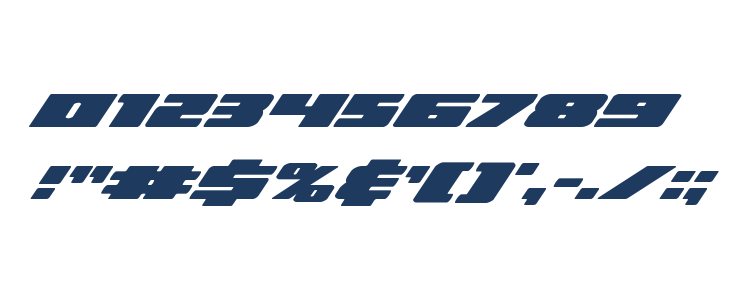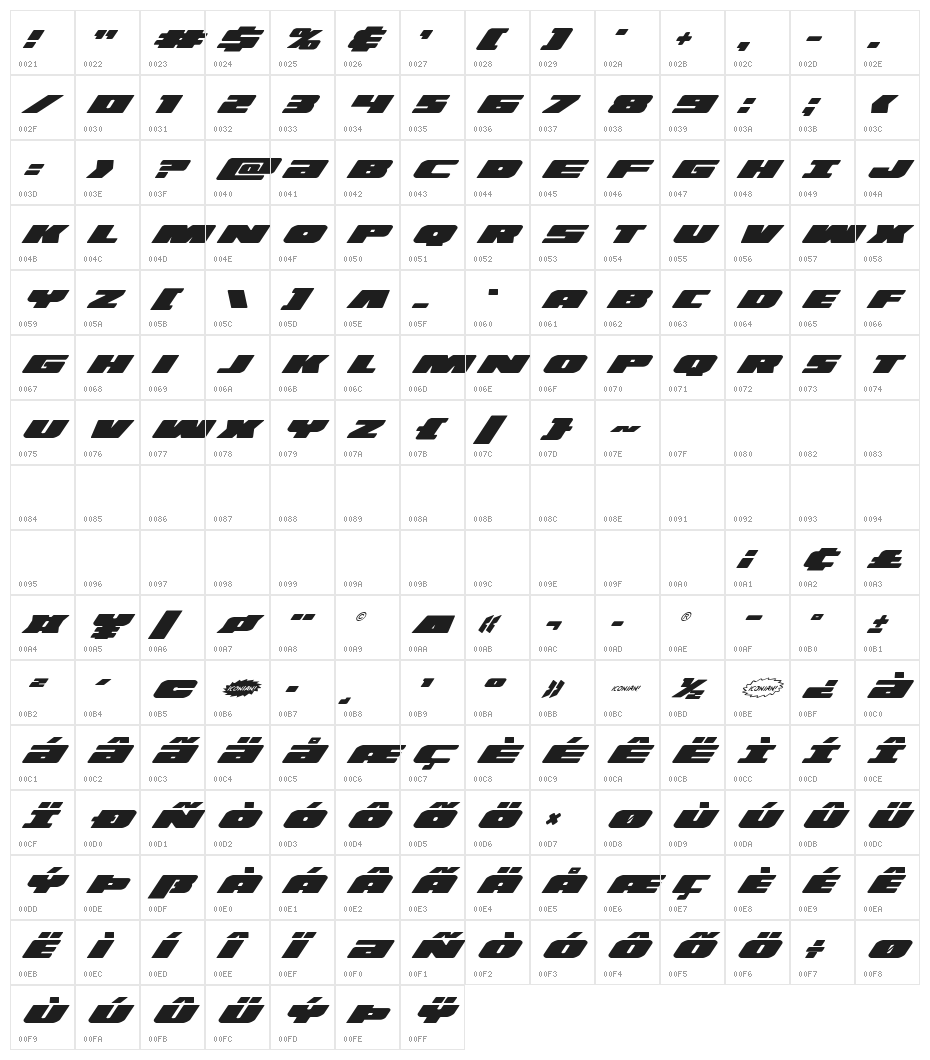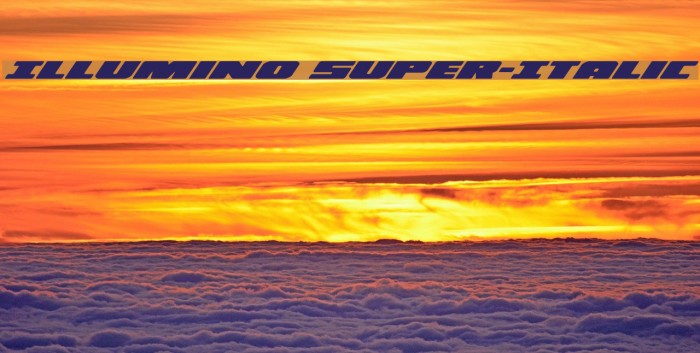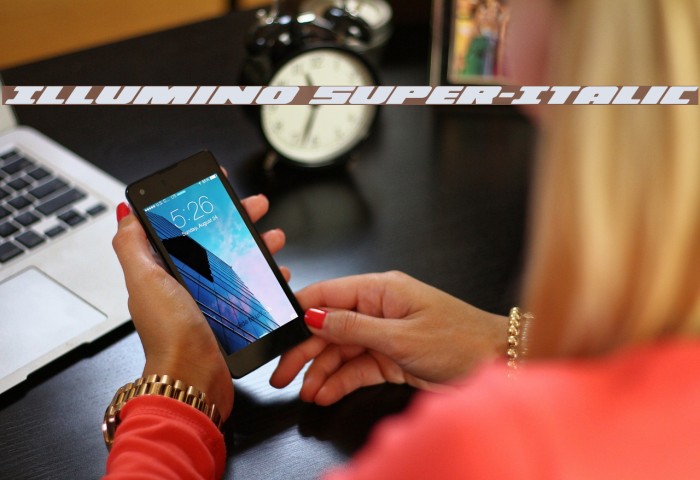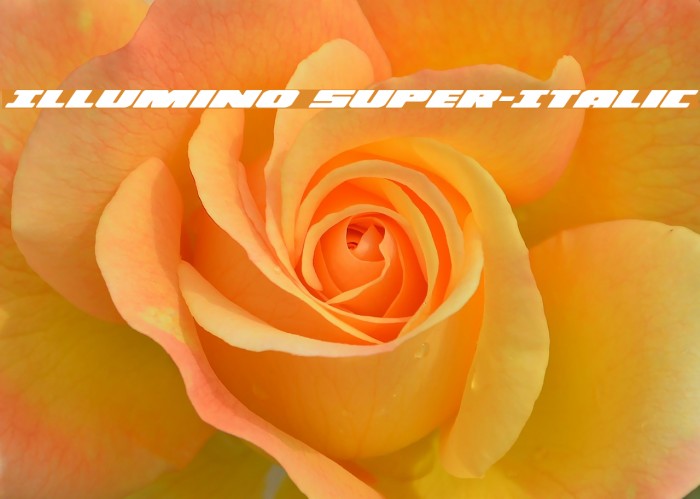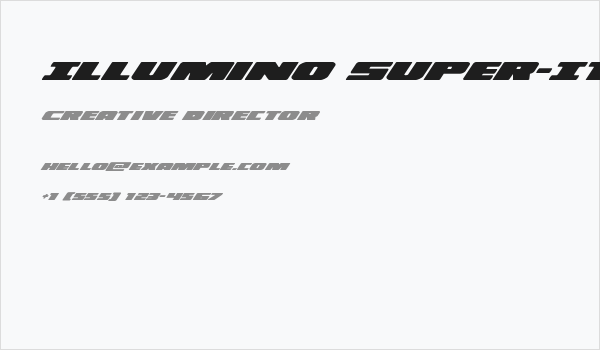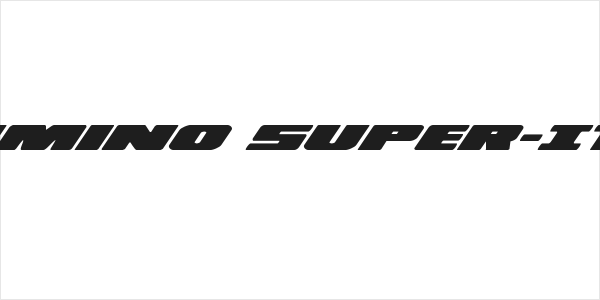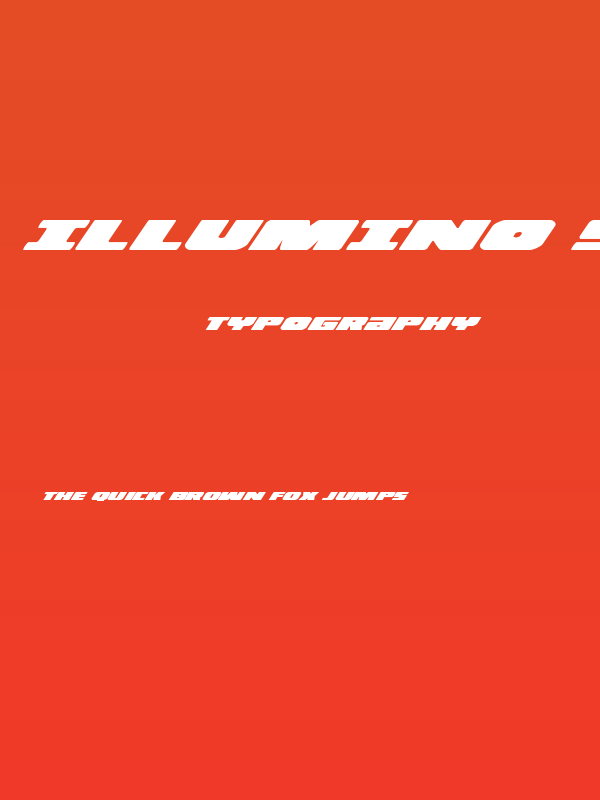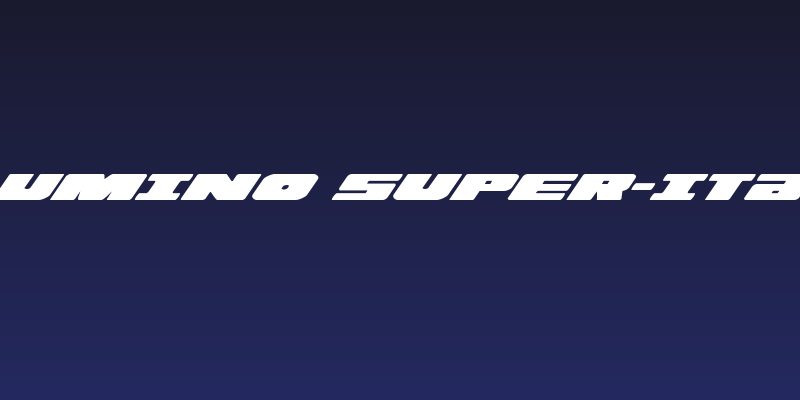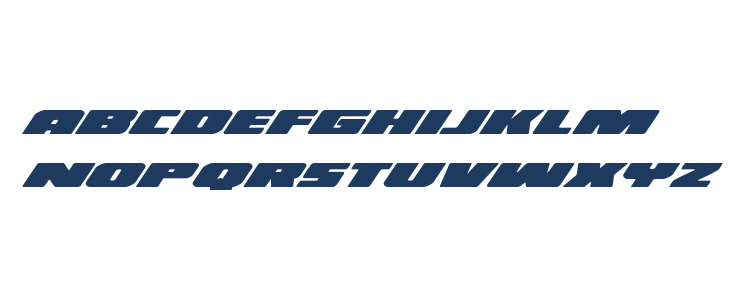
Illumino Super-Italic Font
Illumino Super-Italic Description
This font features a bold and dynamic style with a strong italic slant, giving it a sense of motion and energy. The characters are wide and robust, with a distinct geometric influence that adds a modern touch. The uppercase letters are particularly striking, with sharp angles and a consistent stroke width that enhances readability. The numbers and special characters maintain the same boldness and angularity, ensuring a cohesive look across all glyphs. This font is ideal for projects that require a strong visual impact and a contemporary feel.
| Proposed Projects | Perfect for sports branding, dynamic posters, and modern advertising campaigns. |